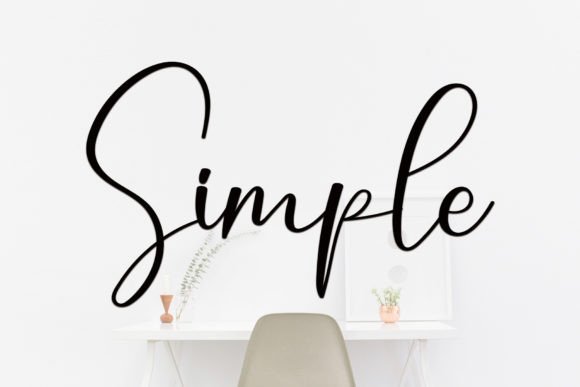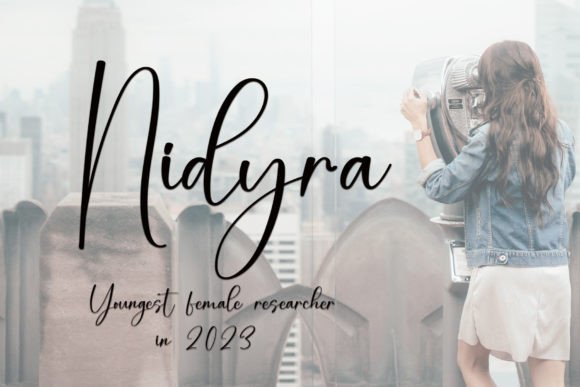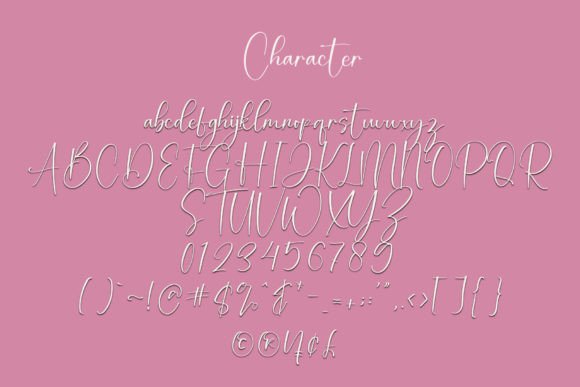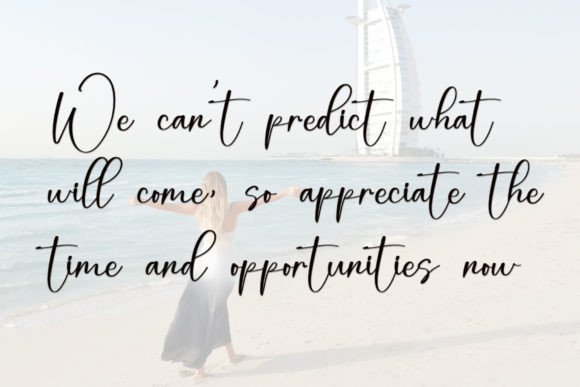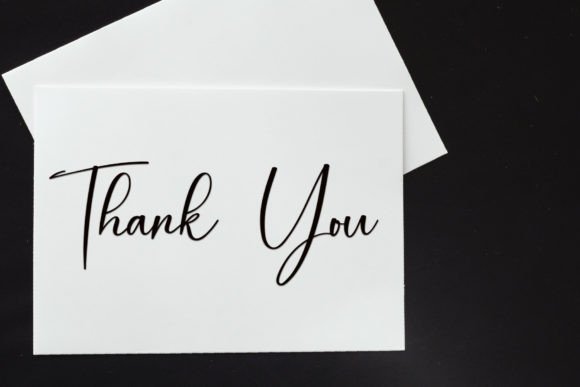
Introducing Greating Font: Elevate Your Designs with Elegance and Sophistication
Are you on the hunt for a font that exudes class, modernity, and refinement? Look no further than Greating Font, a stunning handwritten typeface that is sure to take your designs to the next level. With its beautiful and elegant strokes, Greating is the perfect choice for designers and crafters seeking to add a touch of sophistication to their work.
What Makes Greating Font So Special?
Greating Font is a versatile and stylish typeface that boasts a range of characteristics that make it ideal for a wide variety of design applications. Here are just a few reasons why Greating is a must-have for any designer or crafter:
• Classy and Modern: Greating Font is the epitome of modern elegance, with clean lines, flowing strokes, and a sophisticated aesthetic that is sure to impress.
• Handwritten with Love: This beautiful font is handwritten with care and attention to detail, giving it a personal and unique touch that sets it apart from more generic typefaces.
• Perfect for Branding: Whether you’re looking to create a logo, develop a brand identity, or simply add some flair to your social media posts, Greating Font is the perfect choice.
• Multipurpose: From invitations and stationery to wedding designs and more, Greating Font is a versatile typeface that can be used in a wide range of design applications.
How to Use Greating Font in Your Designs
Greating Font is incredibly easy to use, and can be incorporated into your designs in a variety of ways. Here are a few ideas to get you started:
• Logos and Branding: Use Greating Font to create a stunning logo or brand identity that sets your business apart from the competition.
• Invitations and Stationery: Add a touch of elegance to your invitations, stationery, and other paper goods with Greating Font.
• Wedding Designs: Make your wedding designs truly unforgettable with Greating Font, perfect for wedding invitations, programs, and more.
• Social Media Posts: Elevate your social media posts with Greating Font, and make your content stand out from the crowd.
Why Designers and Crafters Love Greating Font
Greating Font has quickly become a favorite among designers and crafters, and it’s easy to see why. Here are just a few reasons why this beautiful typeface has won the hearts of so many:
• Unique and Personal: Greating Font has a unique and personal touch that sets it apart from more generic typefaces.
• Elegant and Sophisticated: This beautiful font exudes elegance and sophistication, making it perfect for designers and crafters seeking to add a touch of class to their work.
• Versatile: Greating Font can be used in a wide range of design applications, making it a valuable addition to any designer’s or crafter’s toolkit.
In conclusion, Greating Font is a beautiful and refined handwritten typeface that is perfect for designers and crafters seeking to add a touch of elegance and sophistication to their work. With its classy and modern aesthetic, versatility, and unique personal touch, Greating Font is sure to become a go-to choice for anyone looking to elevate their designs. So why wait? Try Greating Font today, and see the difference it can make in your designs!